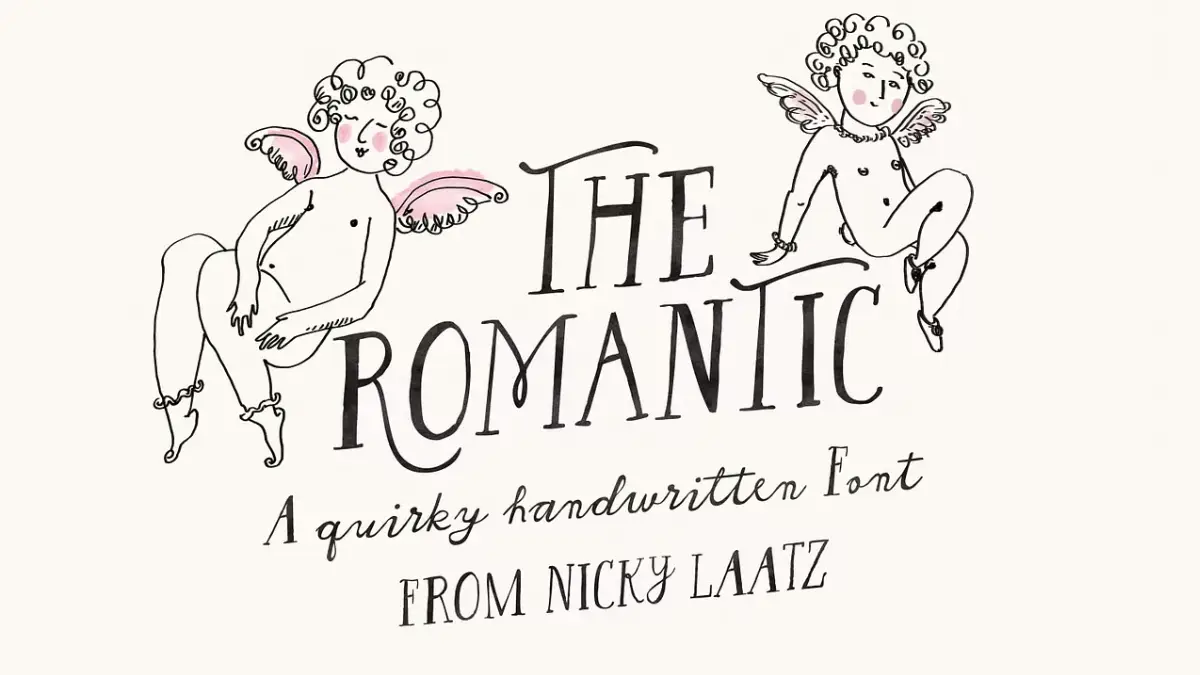
The Romantic Font: Why This Hand-Drawn Serif-Script Hybrid Is Redefining Vintage Typography
The Romantic font arrives at a moment when designers are exhausted by algorithmic perfection. Nicky Laatz created something that refuses to behave. Moreover, this hand-drawn script and serif hybrid doesn’t just reference vintage aesthetics. Instead, it reconstructs them with contemporary sensibility. The typeface channels antique quilled handlettering while rejecting the sterile precision of digital uniformity.
Consequently, the Romantic font has sparked what typography critics are calling “imperfect authenticity.” This concept describes typefaces that embrace human inconsistency rather than eliminate it. Furthermore, each glyph carries microscopic variations that mimic the pressure and flow of actual penmanship. Designers now seek fonts that feel touched by human hands, not generated by perfect vectors.
The Romantic Font by Nicky Laatz is a vintage-inspired hand-drawn script and serif hybrid typeface
What Makes the Romantic Font Different From Standard Script Typefaces?
The Romantic font operates through what we might call “dual-weight characterization.” This framework describes typefaces that merge two traditionally separate categories into one coherent system. Specifically, the flowing lowercase letters function as pure script. Meanwhile, the uppercase forms introduce serif architecture into the equation.
This creates unexpected visual tension. Subsequently, the typeface doesn’t read as script with serif accents. Rather, it presents as a genuine hybrid where both typographic traditions share equal authority. Each uppercase letter rises with deliberate height and decorative serifs. Then, lowercase characters flow with cursive connectivity and gestural warmth.
The Architectural Logic Behind Character Design
Each character demonstrates what designers call “intentional irregularity.” This refers to controlled imperfections that suggest handcrafted origins without sacrificing legibility. Therefore, stroke weights vary subtly within individual letters. Terminal points show organic endings rather than geometric cuts.
Additionally, the baseline deliberately wobbles. This micro-movement prevents the mechanical rigidity that plagues many digital scripts. Nevertheless, the Romantic font maintains clear readability across different sizes and applications.
Swashes, Ligatures, and the Principle of Infinite Variation
The typeface includes extensive alternate characters and ligatures. Accordingly, designers can construct text where no two words share identical letter combinations. This addresses a fundamental problem in script typography: repetitive patterns that expose digital origins.
OpenType features enable what typographers call “contextual morphology.” In other words, the font automatically adjusts character connections based on surrounding letters. Thus, the text flows with organic unpredictability while preserving structural coherence.
Why Vintage-Inspired Fonts Are Dominating Contemporary Design
Design culture has entered what scholars term the “nostalgia utility phase.” This describes the strategic deployment of retro aesthetics to create emotional connection in oversaturated markets. However, the Romantic font succeeds where generic vintage fonts fail. It offers actual historical texture rather than superficial period styling.
The typeface references early 20th-century penmanship manuals and Victorian flourish conventions. Yet, it translates these influences through modern technical capabilities. PUA encoding ensures accessibility across platforms, including Canva and non-OpenType environments.
The Psychology of Imperfect Typography
Research in visual perception suggests that perfect symmetry can trigger subtle cognitive distrust. Conversely, minor imperfections signal authenticity and human involvement. Therefore, the Romantic font’s deliberately irregular baseline and variable stroke weights activate psychological responses associated with handcrafted quality.
This phenomenon explains why brands are abandoning geometric sans serifs in favor of more expressive alternatives. Consumers increasingly perceive perfectly uniform typography as corporate or algorithmic. Meanwhile, fonts with character variation communicate care, individuality, and artisanal values.
Practical Applications: Where the Romantic Font Excels
The typeface performs best in contexts requiring emotional warmth combined with vintage credibility. Wedding invitations represent the obvious use case. Nevertheless, the Romantic font extends far beyond conventional script applications.
Editorial Design and Magazine Headers
Lifestyle publications use the Romantic font for article titles and pull quotes. The serif-script hybrid creates a distinctive visual hierarchy without requiring multiple typeface families. Furthermore, the uppercase letters function as decorative display elements. Then, lowercase forms provide connective flow for longer headline treatments.
Can I modify or customize the Romantic font for specific projects?